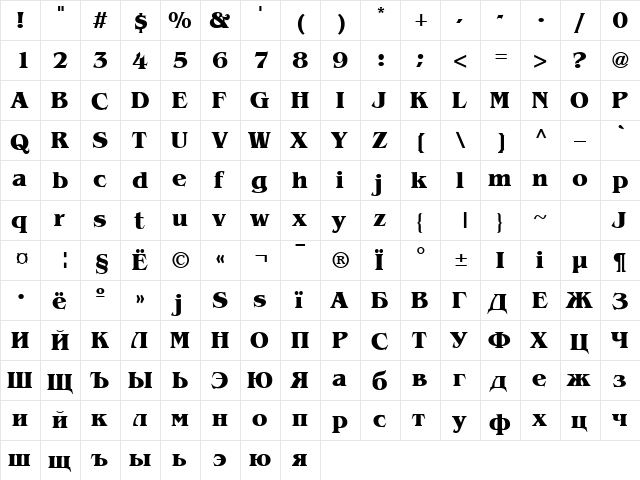
Bengaly Bold
Design Context for Bengaly Typeface
Bengaly is a composed and adaptable typeface that performs quietly and consistently across a wide range of design contexts. Its bold stroke weight gives it real presence on the page.